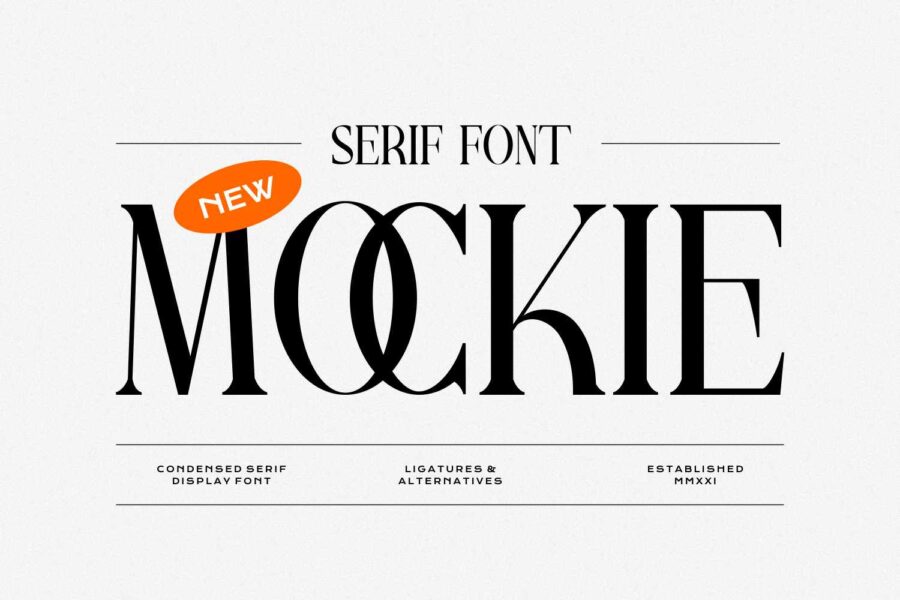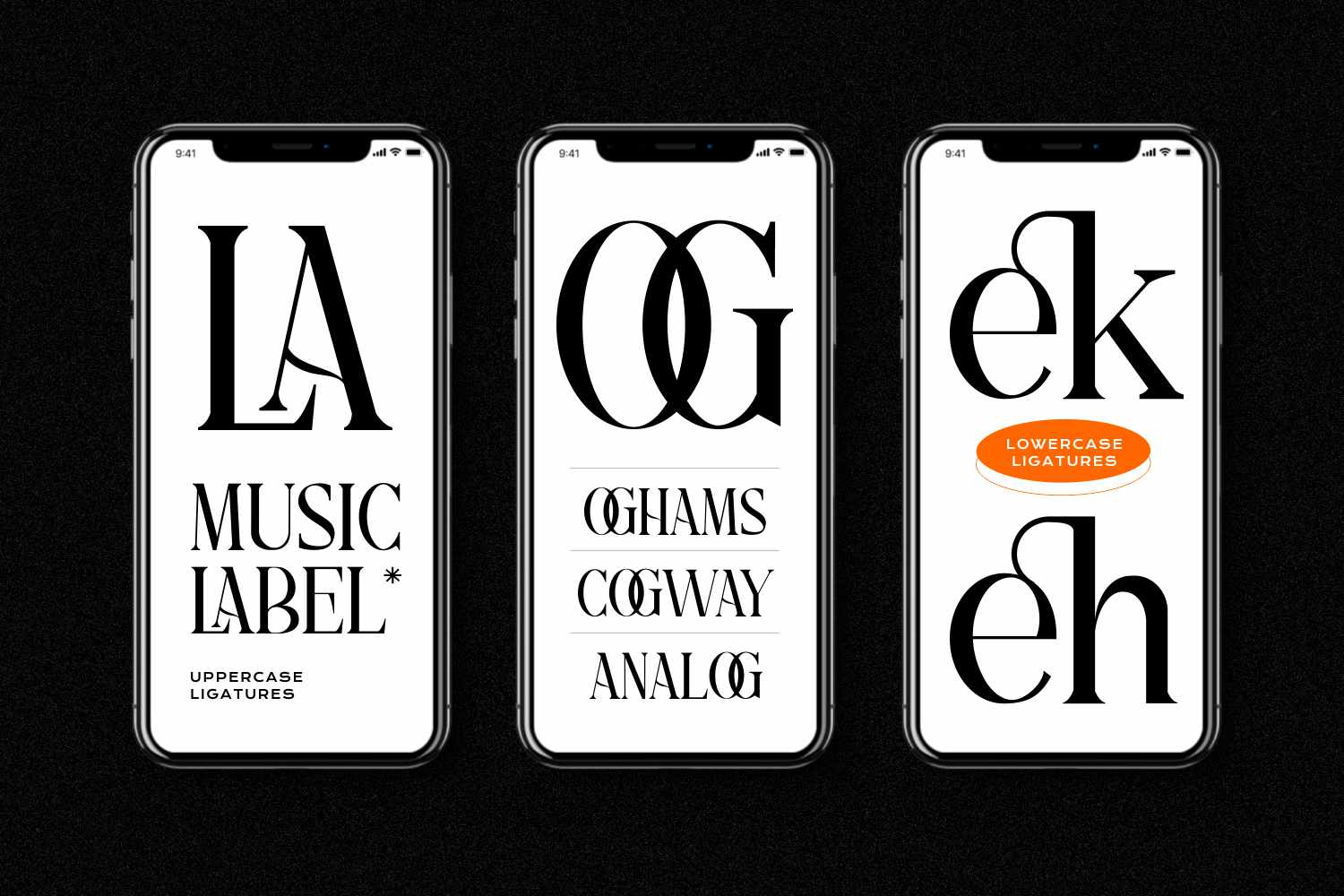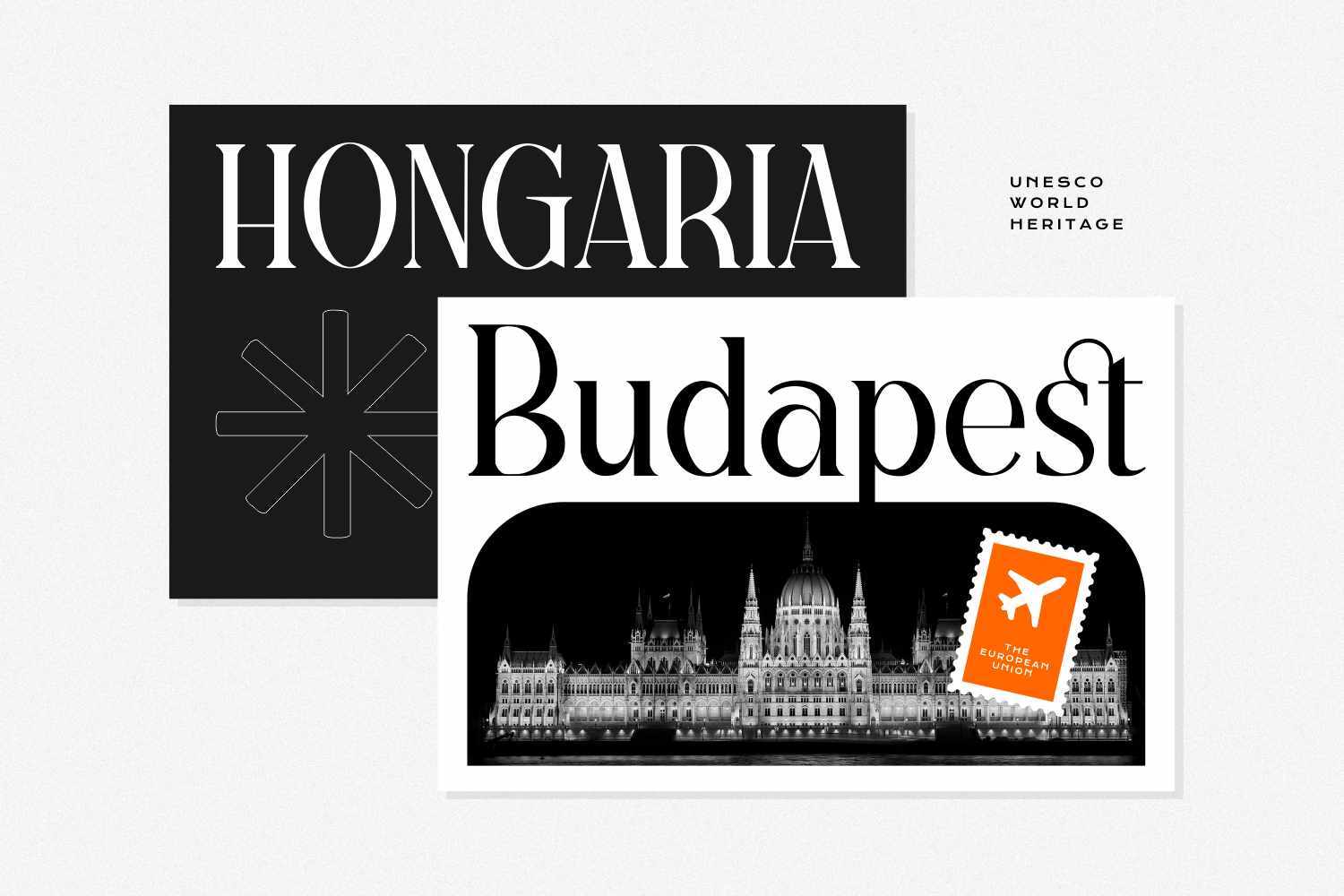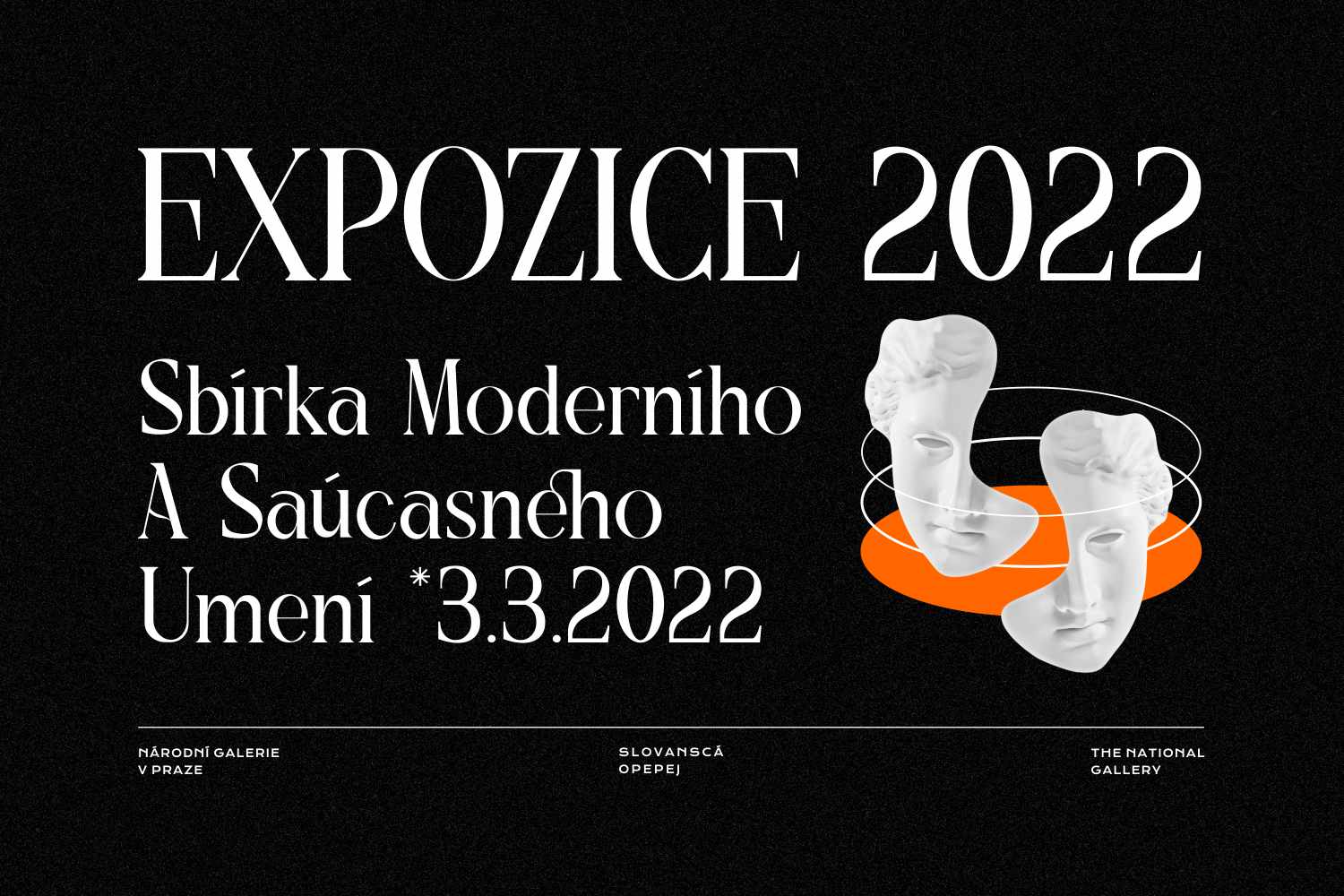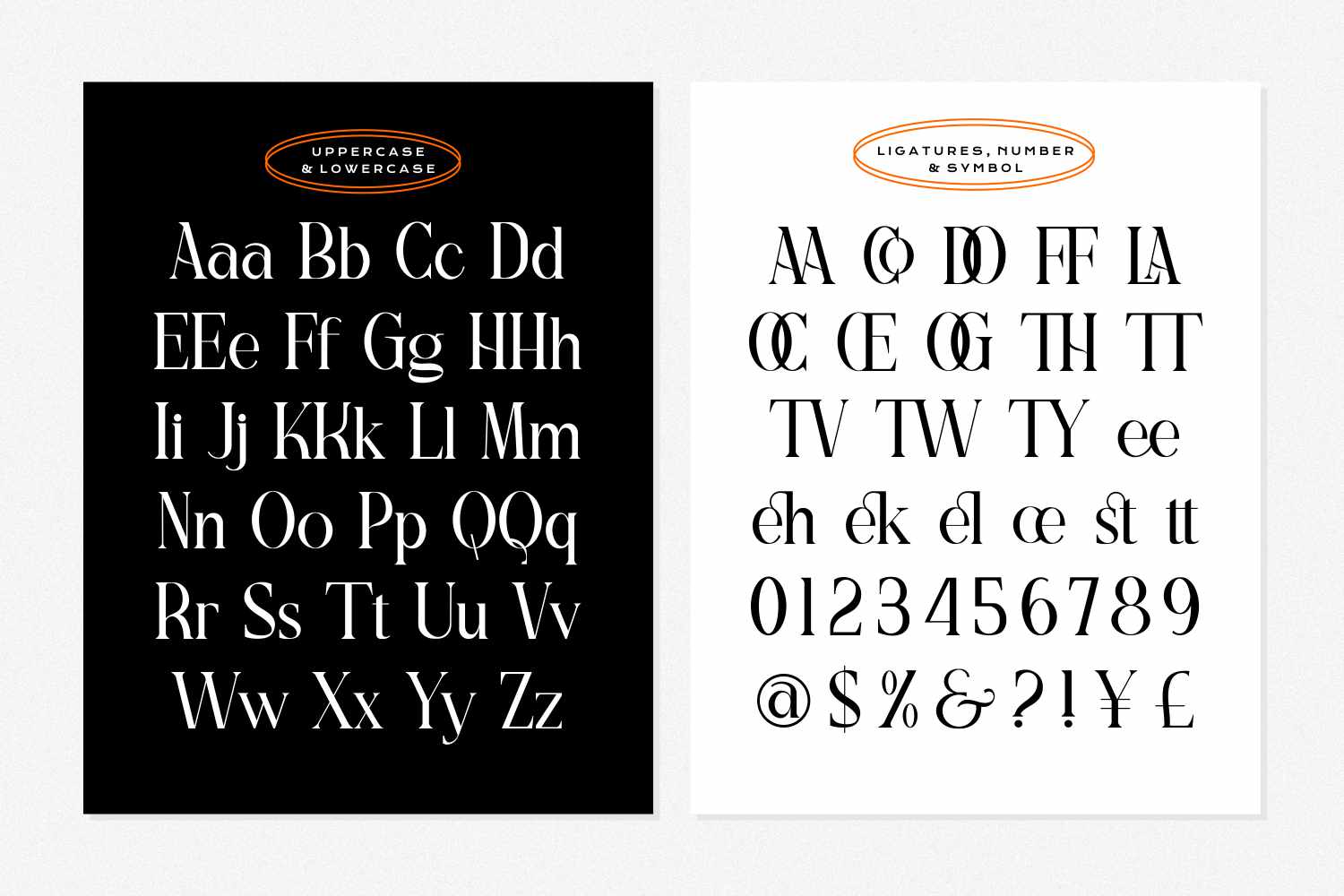
Mockie
Glyphs for Mockie
Mockie is a modern condensed serif display font that combines elegance with a bold editorial flair. With its tall proportions, sleek contrast, and sharp serifs, Mockie is ideal for high-end branding, magazine headlines, packaging, and fashion-inspired layouts. The inclusion of stylish ligatures and alternate glyphs adds personality and sophistication to any typographic composition.
From uppercase elegance to creative ligatures in both caps and lowercase, Mockie offers designers a versatile tool for expressive yet refined typography. This font brings a contemporary classic charm to digital and print designs, making it perfect for logos, posters, book covers, and cultural publications seeking timeless visual identity.